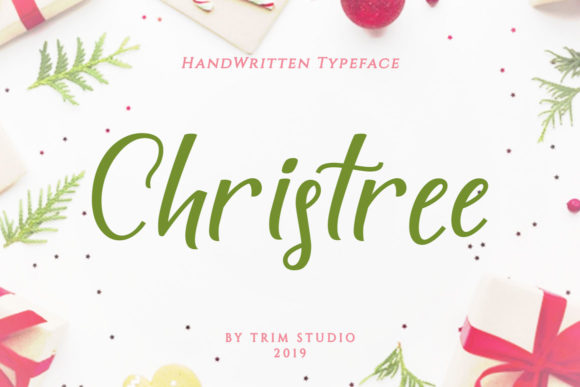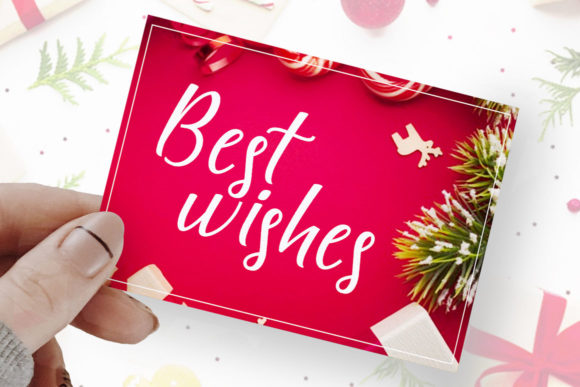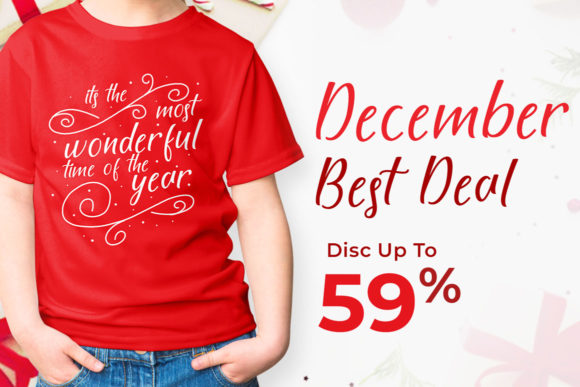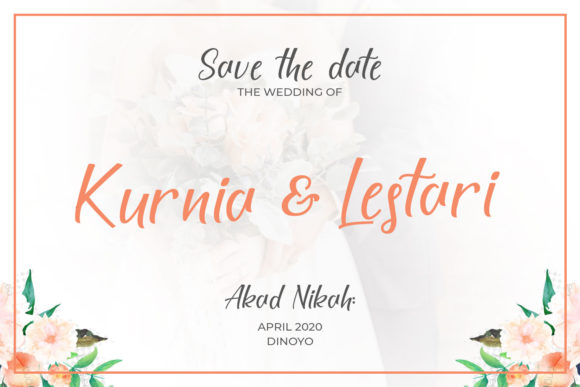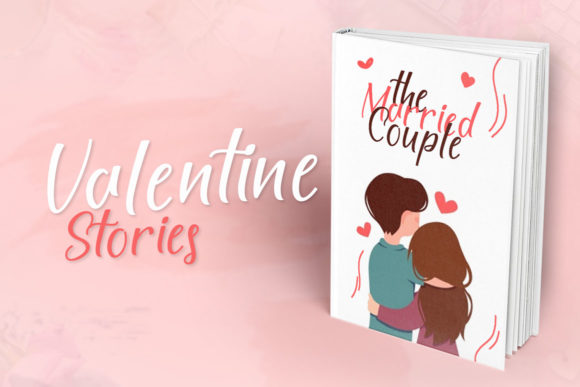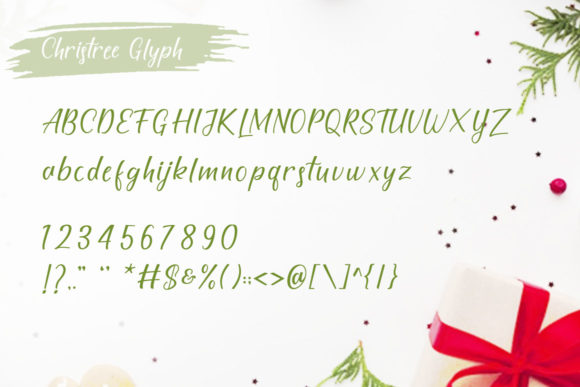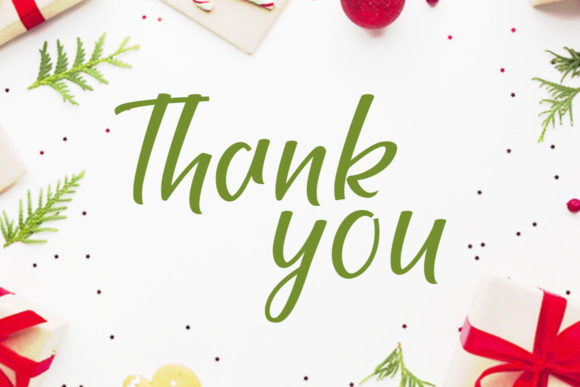
HomeScript FontsChristree Font Script Fonts Christree Font FacebookXPinterestWhatsApp Christree Font Poster 2 Christree Font Poster 3 Christree Font Poster 4 Christree Font Poster 5 Christree Font Poster 6 Christree Font Poster 7 About Christree Font Christree celebrates all things Christmas. Get into the holiday spirit by this beautiful and festive script. DOWNLOAD ON CREATIVE FABRICAThis font is sold and delivered by Creative Fabrica. Font Canyon may earn a commission if you buy through this link. People also explored Shining Christmas Font Simple White Font Calligraphy Font Bundle Vol 5 Better Valentina Duo Font Simplicity Font Anatolia Font Baleria Font Christmas Collection Font Bummill Font 326 0 TagsChristree Font Previous articleLovely Yollandy FontNext articleAugustine Font LEAVE A REPLY Cancel reply Comment: Please enter your comment! Name:* Please enter your name here Email:* You have entered an incorrect email address! Please enter your email address here Website: Save my name, email, and website in this browser for the next time I comment. Personal Use Free Loving Personal Use Free Read more about this font Konexio Personal Use Free Read more about this font Comic Caps Personal Use Free Read more about this font Roland Personal Use Free Read more about this font BLOG Free Fonts Risk: Why Free Fonts Can Be Dangerous for Designers Free Fonts Risk: Why Free Fonts Can Be Dangerous for Designers Using free fonts is a common practice in web and graphic design. However, the... Fonts That Capture the Spirit of New York City Best Fonts for YouTube Videos: Make Your Thumbnails Stand Out Using Fonts in Digital Marketing: Tips to Strengthen Your Brand Identity